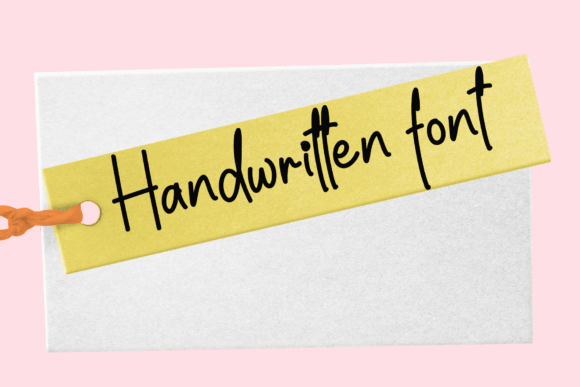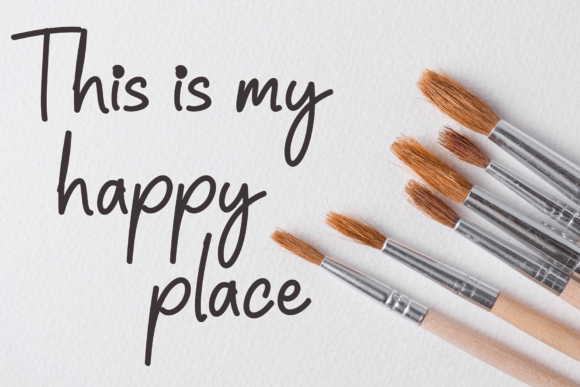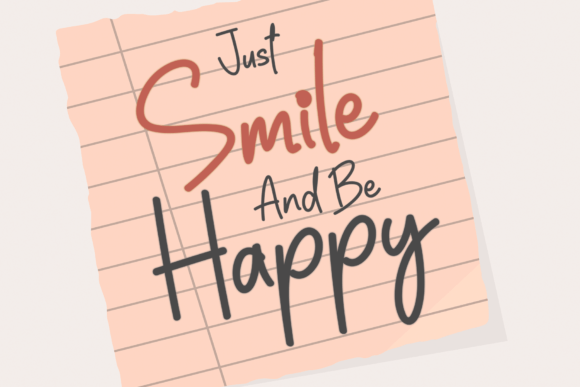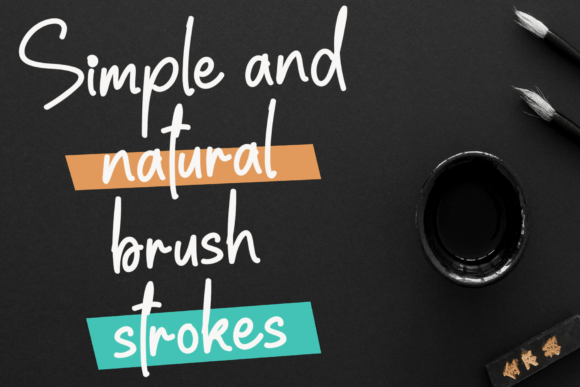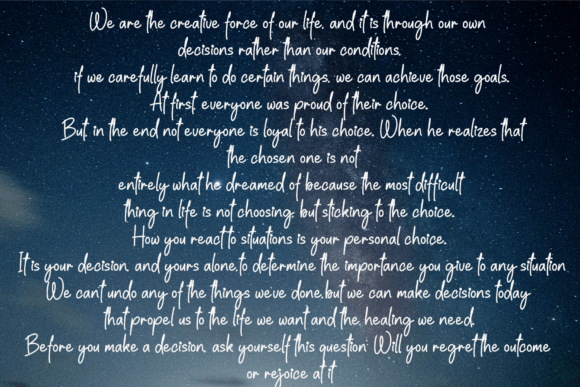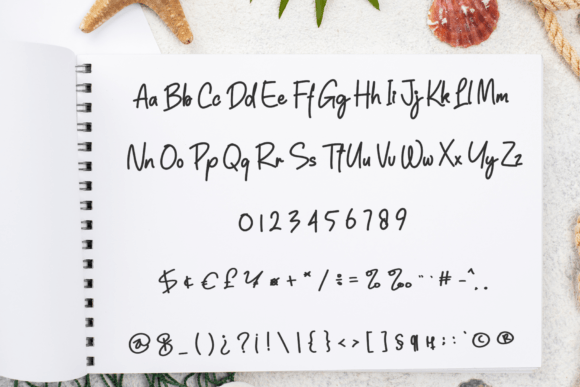
Introducing California Story Font: The Ultimate Luxury Addition to Your Design Projects
Are you a designer or crafter looking for a font that can add a touch of luxury and sophistication to your design projects? Look no further than the California Story Font! This sweet and beautiful handwritten font is perfect for anyone who wants to create stunning designs that stand out from the crowd.
What Makes California Story Font So Special?
California Story Font is a unique and elegant handwritten font that features characters that dance along the baseline. This distinctive feature gives the font a playful and whimsical feel, while still maintaining a level of sophistication and luxury. The font is perfect for a wide range of design projects, from branding and packaging to wedding invitations and social media graphics.
Key Features of California Story Font
• Handwritten font: California Story Font is a beautiful handwritten font that adds a personal touch to any design project.
• Luxury feel: The font’s elegant and sophisticated feel makes it perfect for high-end design projects.
• Characters that dance along the baseline: This unique feature gives the font a playful and whimsical feel.
• Versatile: California Story Font can be used for a wide range of design projects, from branding and packaging to wedding invitations and social media graphics.
How to Use California Story Font in Your Design Projects
California Story Font is easy to use and can be incorporated into a wide range of design projects. Here are a few ideas to get you started:
• Branding and packaging: Use California Story Font to create luxurious branding and packaging designs that stand out from the crowd.
• Wedding invitations: Add a touch of elegance and sophistication to your wedding invitations with California Story Font.
• Social media graphics: Use California Story Font to create stunning social media graphics that grab attention and drive engagement.
• Stationery and cards: Create beautiful stationery and cards with California Story Font that are perfect for special occasions.
Why Designers and Crafters Love California Story Font
Designers and crafters love California Story Font for its unique and elegant feel. The font is perfect for anyone who wants to add a touch of luxury and sophistication to their design projects. Here are a few reasons why designers and crafters love California Story Font:
• Unique and distinctive: California Story Font is a one-of-a-kind font that stands out from the crowd.
• Elegant and sophisticated: The font’s elegant and sophisticated feel makes it perfect for high-end design projects.
• Easy to use: California Story Font is easy to use and can be incorporated into a wide range of design projects.
• Versatile: The font can be used for a wide range of design projects, from branding and packaging to wedding invitations and social media graphics.
In conclusion, California Story Font is a beautiful and elegant handwritten font that is perfect for designers and crafters who want to add a touch of luxury and sophistication to their design projects. With its unique and distinctive feel, California Story Font is sure to stand out from the crowd and make your designs shine. So why wait? Download California Story Font today and start creating stunning designs that leave a lasting impression!